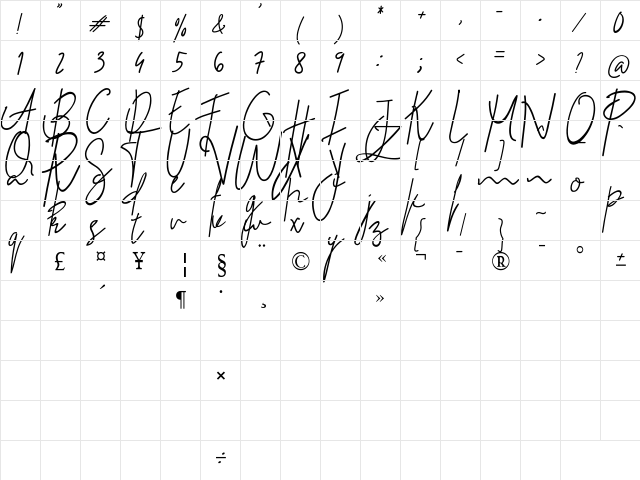
senorita Regular
Design Context for senorita Typeface
senorita is a composed and adaptable typeface that performs quietly and consistently across a wide range of design contexts.